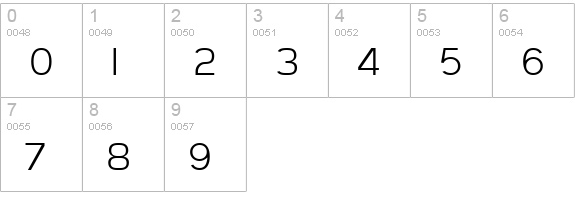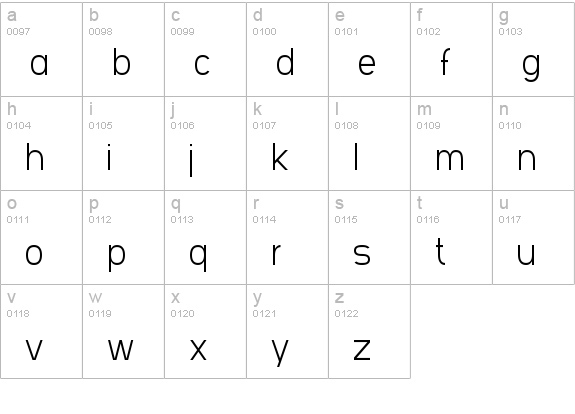
SF Arborcrest Light Font Details
SF Arborcrest Light is a refined, elegant variant in the SF typeface family \xE2\x80\x94 well suited to elegant body text, refined sub-headings, and luxury branding.
SF Arborcrest Light is a stunningly elegant and versatile font that is sure to capture attention and elevate any design project. With its clean lines and graceful curves, this font exudes a sense of sophistication and modernity. Perfect for a wide range of applications, SF Arborcrest Light is ideal for branding, advertising, editorial design, and more. Its light weight adds a sense of delicacy and refinement, making it perfect for creating elegant headlines, logos, and invitations. This font is designed with utmost precision, ensuring optimal legibility even at smaller sizes. Its well-balanced letterforms and generous spacing make reading effortless and enjoyable. Whether used in print or digital media, SF Arborcrest Light will make your content stand out with its timeless beauty. The best part? SF Arborcrest Light is available for free! You can download this font with just a few clicks at FontsMarket.com. This means you can enhance your design projects with a high-quality and professional font without breaking the bank. So why wait? Start using SF Arborcrest Light today and let your creativity soar.